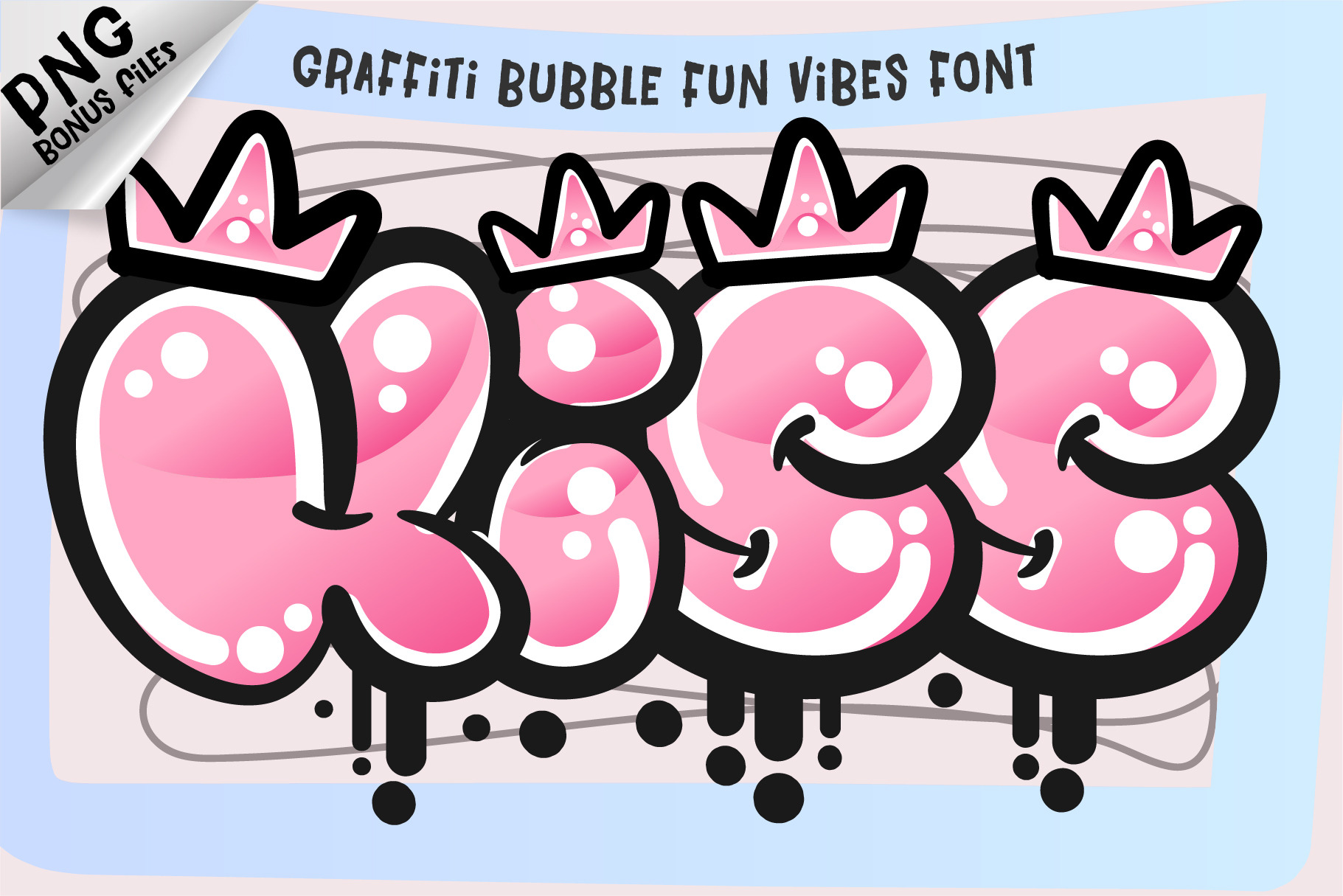
Kiss Font
Kiss – Graffiti Bubble Fun Vibes Font (OTF + PNG Bonus)
Say hello to Kiss, a bold and bubbly graffiti-style font bursting with personality! Designed for playful projects, this fun typeface features thick bubble letters topped with cute crowns, perfect for youth designs, party invites, t-shirts, and more.
Whether you're designing for fun or adding urban flair, Kiss gives your work that playful street vibe with extra charm!